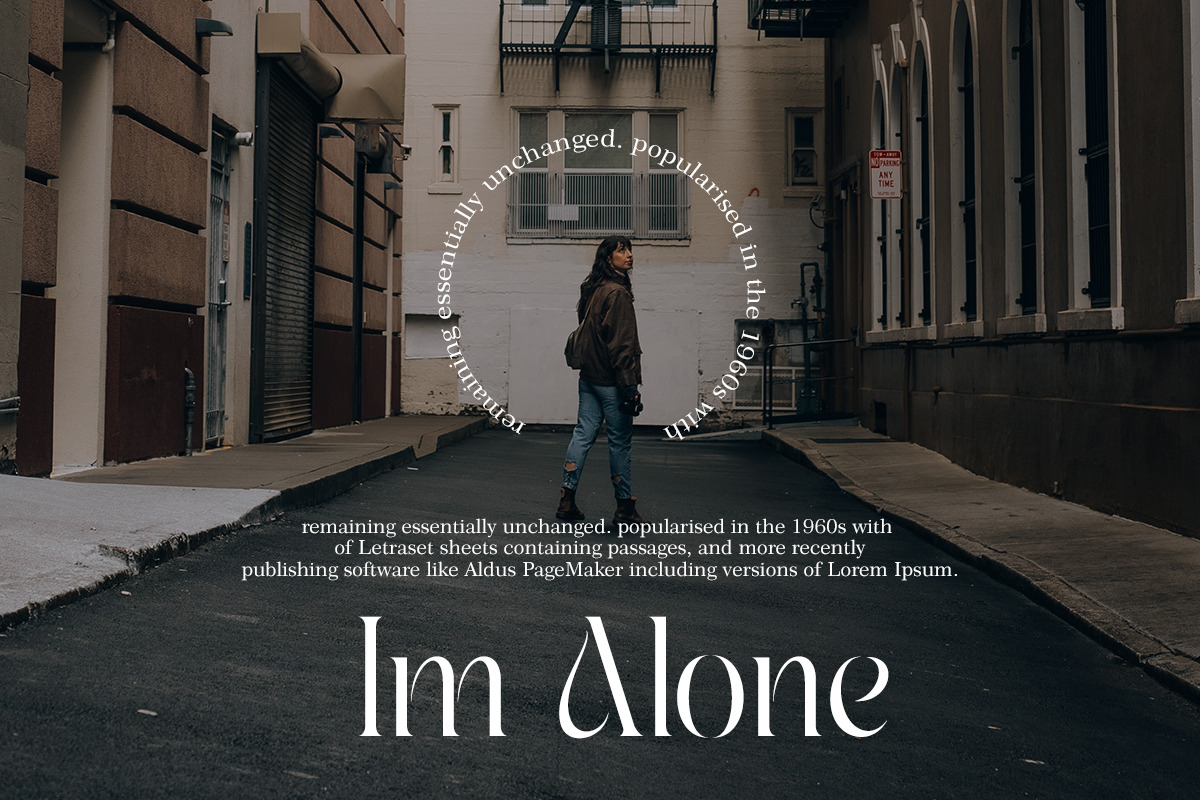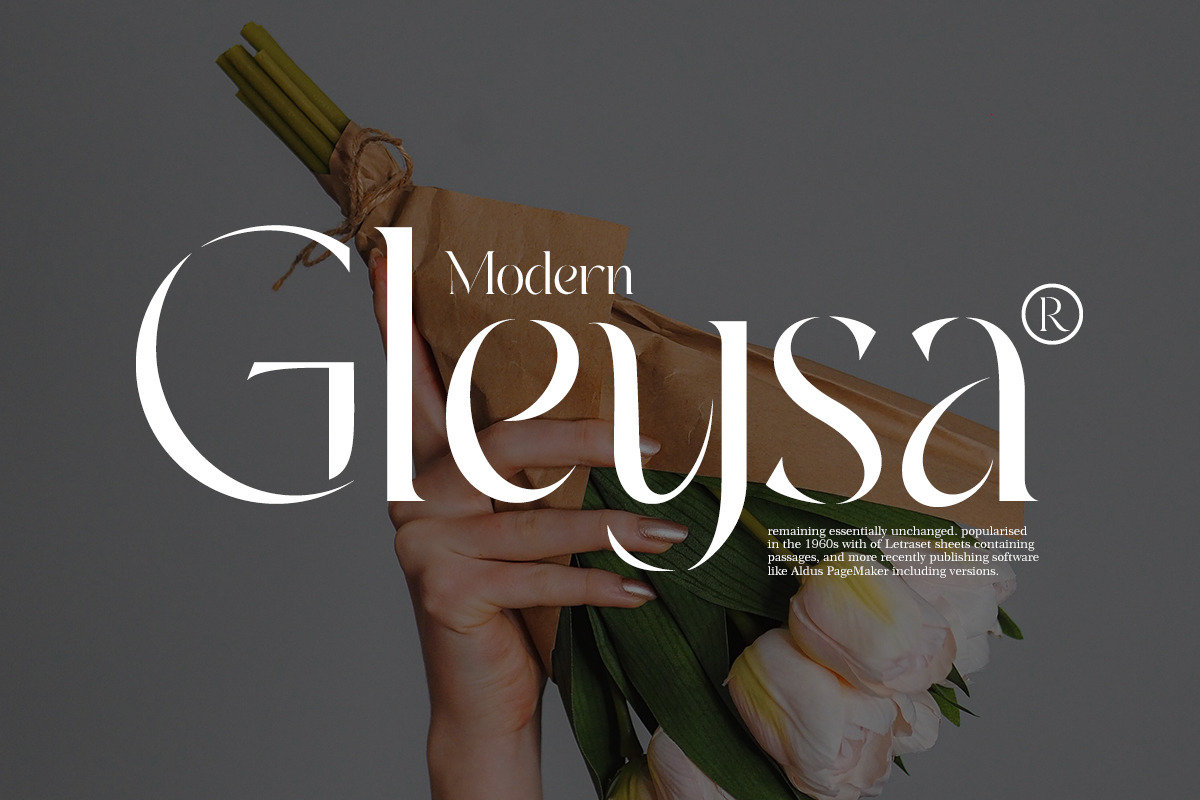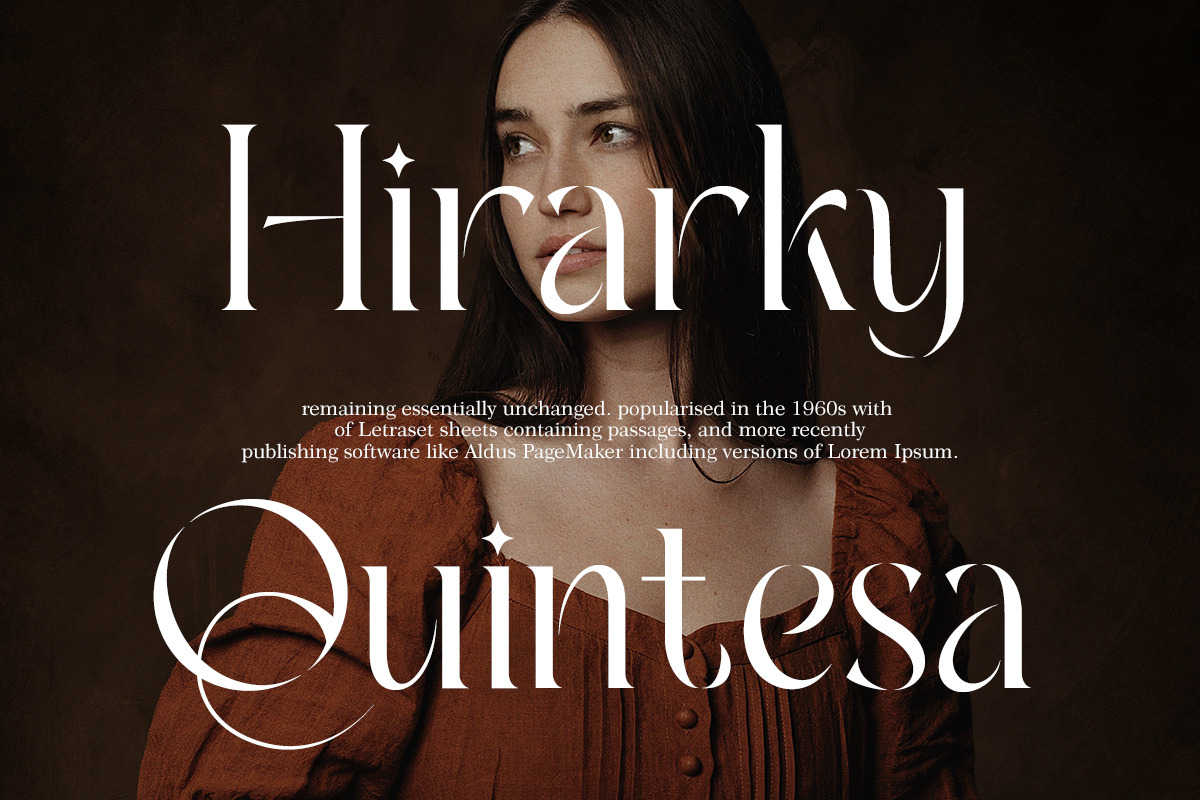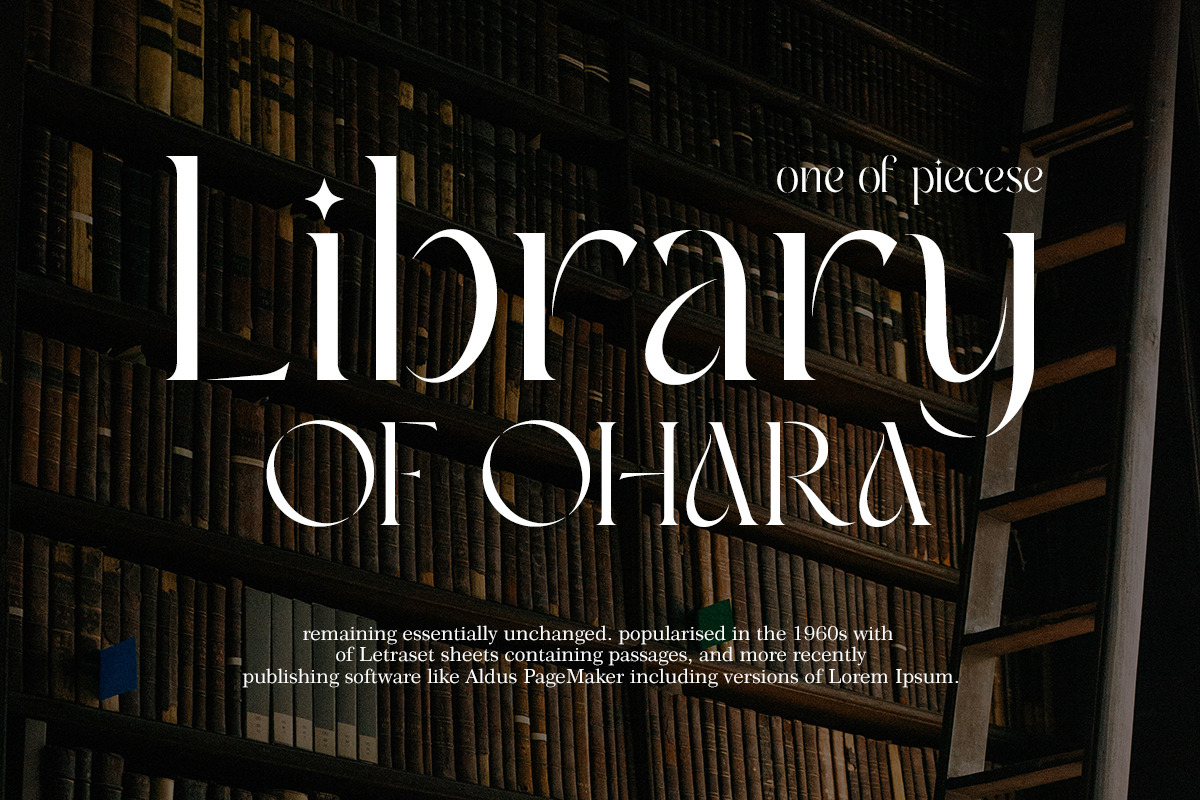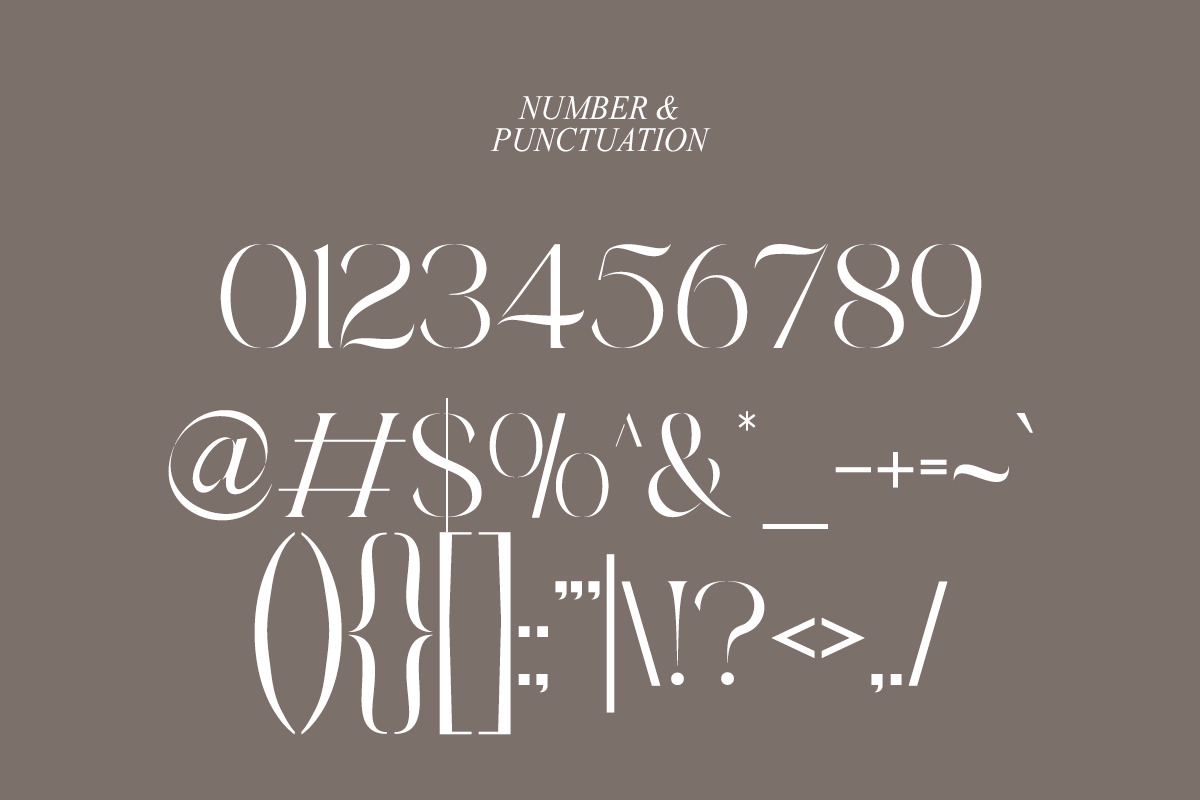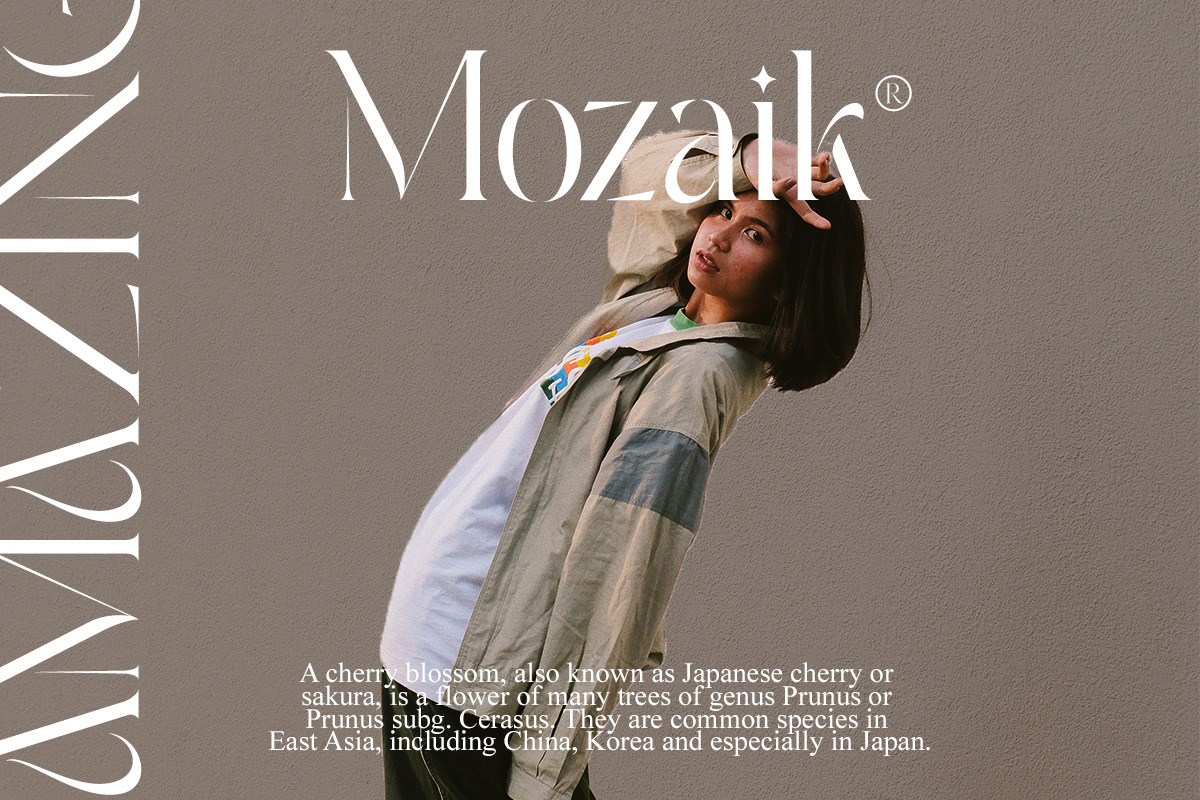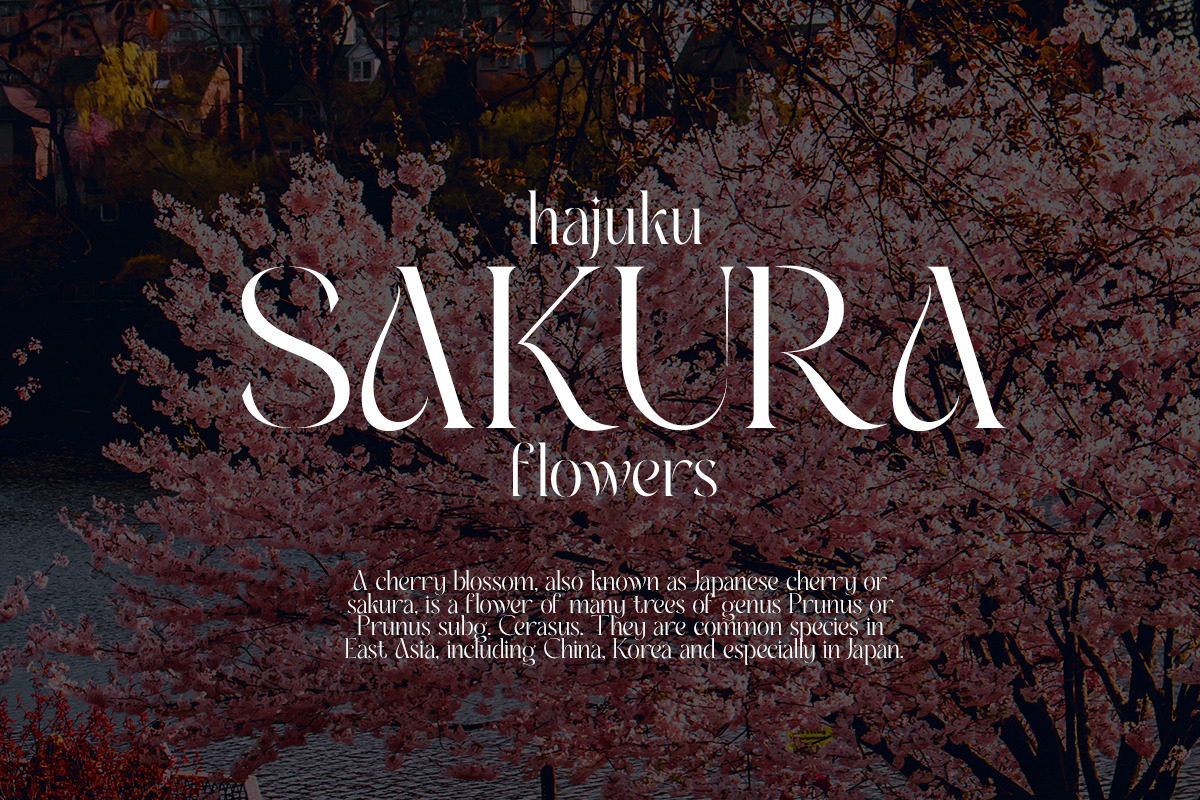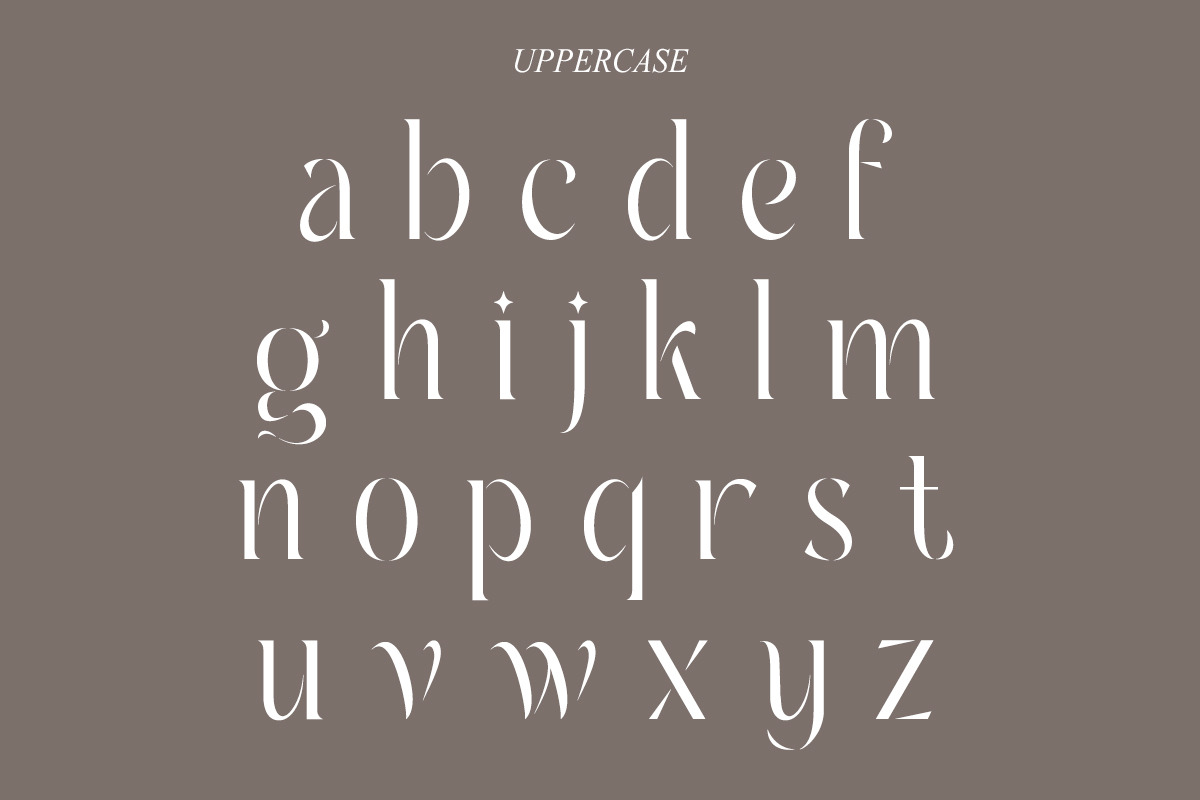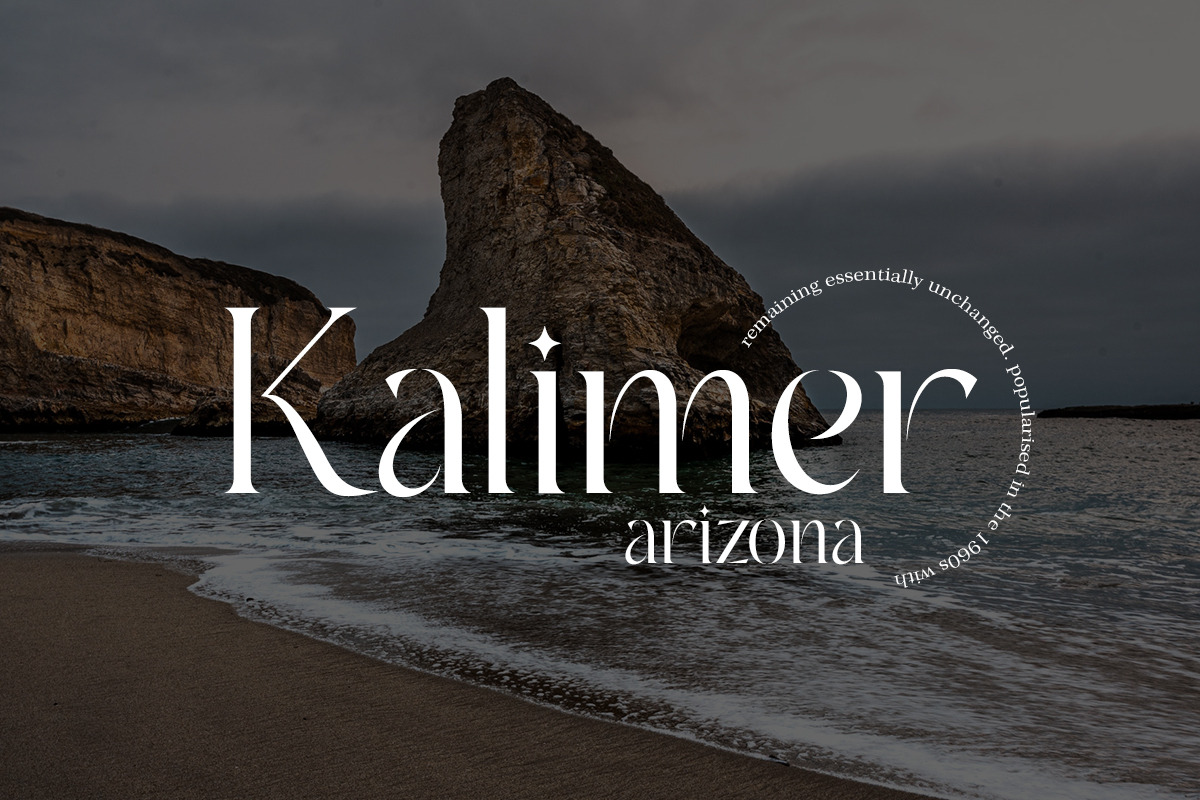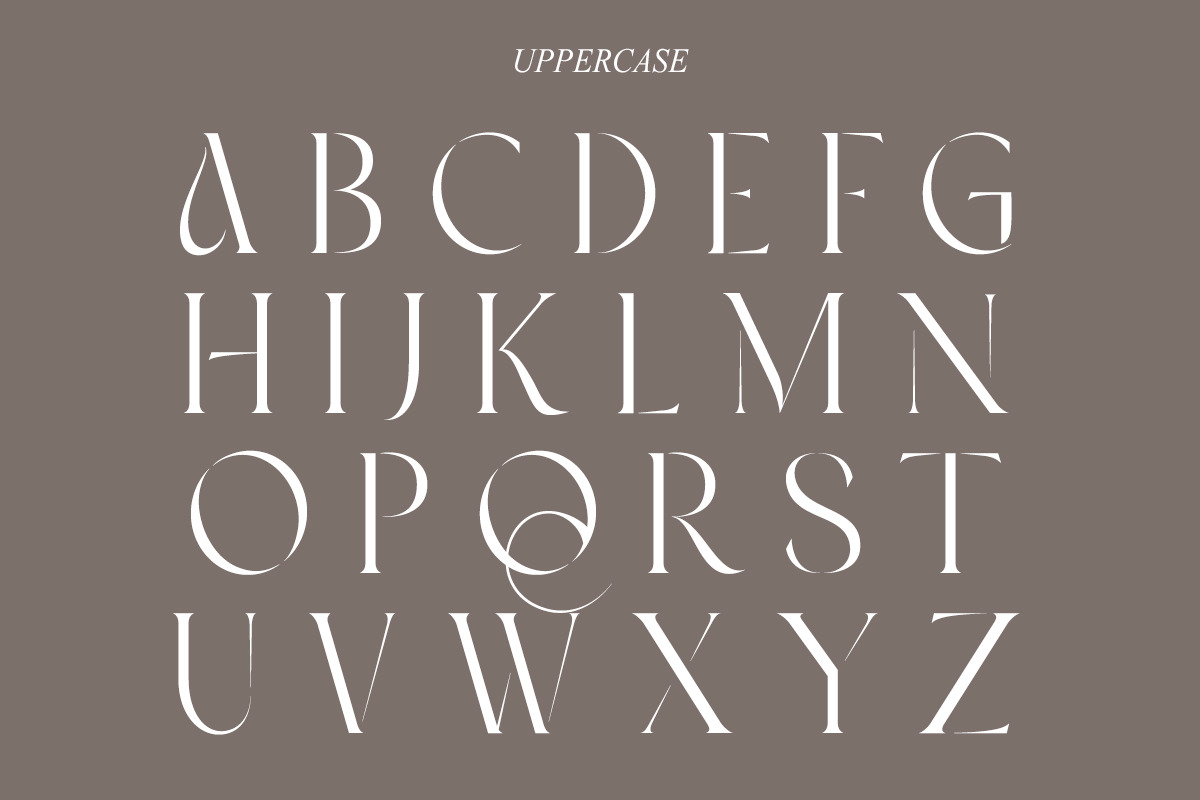
Ambrosia | Modern Serif
Ambrosia fonts includes uppercase letters, lowercase letters, numerals, a large range of punctuation. Serif font with modern stylish style. Created for poster, web design, branding, illustrations, badges and some other works.